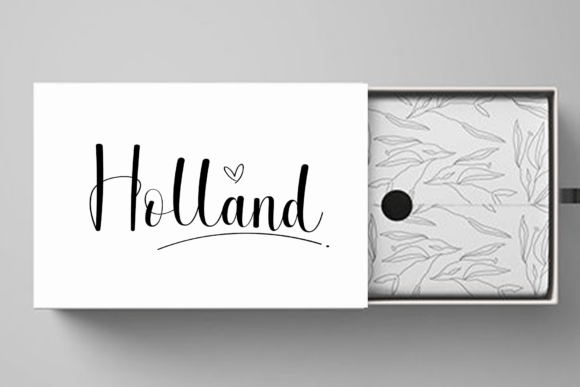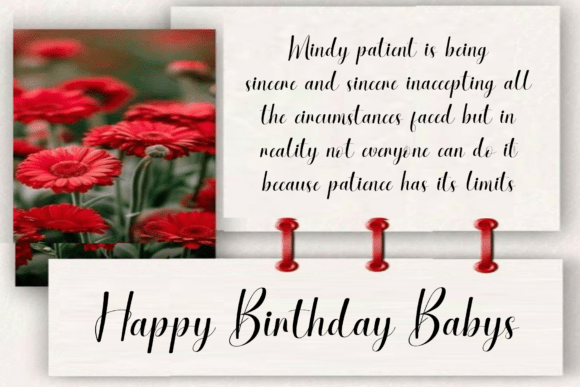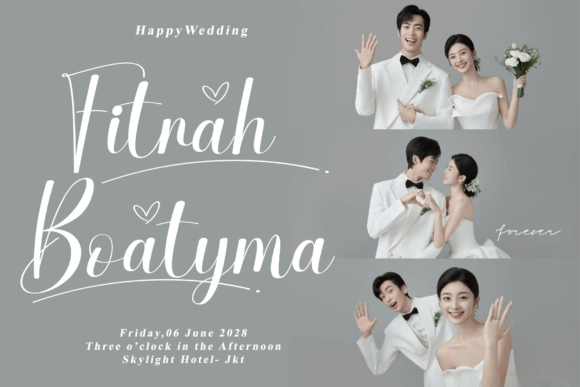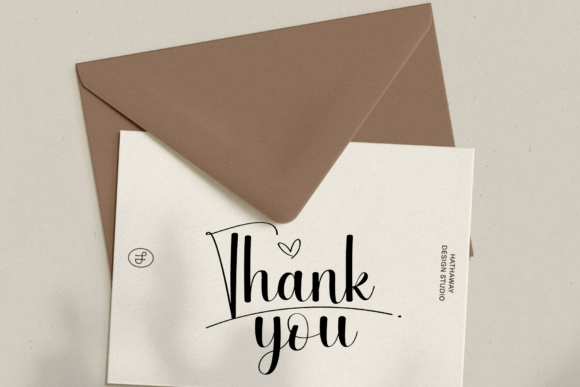
Introducing Creative Font: The Timeless Handwritten Font for Stunning Designs
Are you a designer or crafter looking for a font that can add a touch of elegance and sophistication to your projects? Look no further than Creative Font, a lovely and timeless handwritten font that is perfect for creating eye-catching logos, branding, and quotes.
What Makes Creative Font So Special?
Creative Font is a unique and beautiful handwritten font that is designed to make your designs come alive. Every letter has a distinctive and lovely touch that sets it apart from other fonts. The font is carefully crafted to provide a personal and human feel to your designs, making it perfect for projects that require a touch of warmth and personality.
The Perfect Choice for Designers and Crafters
Whether you’re a designer, crafter, or DIY enthusiast, Creative Font is the perfect choice for your next project. The font is versatile and can be used for a wide range of applications, including:
- Logo design: Create stunning logos that capture the essence of your brand with Creative Font.
- Branding: Use Creative Font to create a consistent brand identity that sets you apart from the competition.
- Quotes and posters: Add a touch of elegance and sophistication to your quotes and posters with Creative Font.
- Stationery and invitations: Create beautiful stationery and invitations that make a lasting impression with Creative Font.
Key Features of Creative Font
Here are some of the key features that make Creative Font a standout choice for designers and crafters:
- Unique and beautiful handwritten letters: Every letter in Creative Font is carefully crafted to provide a personal and human feel to your designs.
- Timeless design: Creative Font has a timeless design that will never go out of style, making it a great investment for designers and crafters.
- Versatile: Creative Font can be used for a wide range of applications, from logo design to stationery and invitations.
- Elegant and sophisticated: Creative Font adds a touch of elegance and sophistication to any design, making it perfect for projects that require a high-end look.
Tips for Using Creative Font
Here are some tips for using Creative Font to get the most out of this beautiful handwritten font:
- Use it sparingly: Creative Font is a statement font, so use it sparingly to add emphasis to your designs.
- Pair it with other fonts: Creative Font pairs well with other fonts, so experiment with different combinations to find the perfect look for your project.
- Experiment with colors: Creative Font looks great in a variety of colors, so don’t be afraid to experiment and find the perfect color scheme for your project.
Creative Font is a lovely and timeless handwritten font that is perfect for designers and crafters looking to add a touch of elegance and sophistication to their projects. With its unique and beautiful letters, versatile design, and elegant feel, Creative Font is a great choice for anyone looking to create stunning designs that capture the essence of their brand or message.